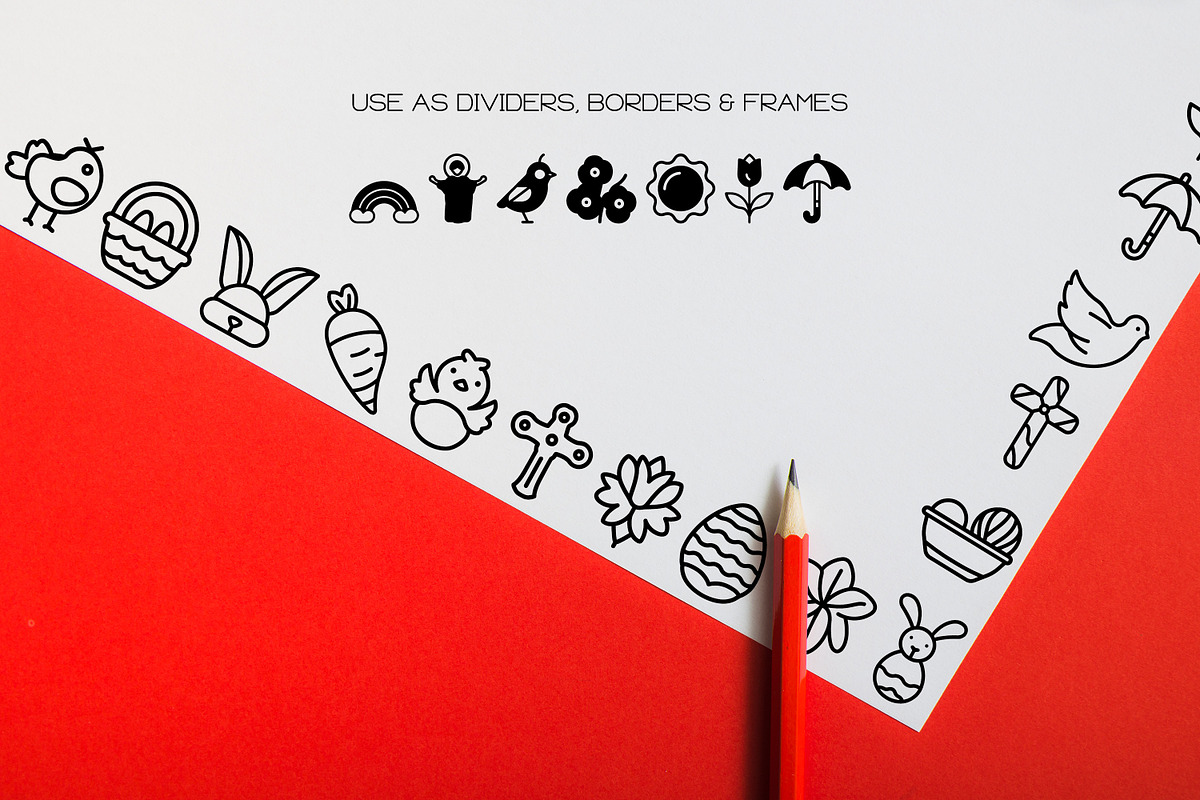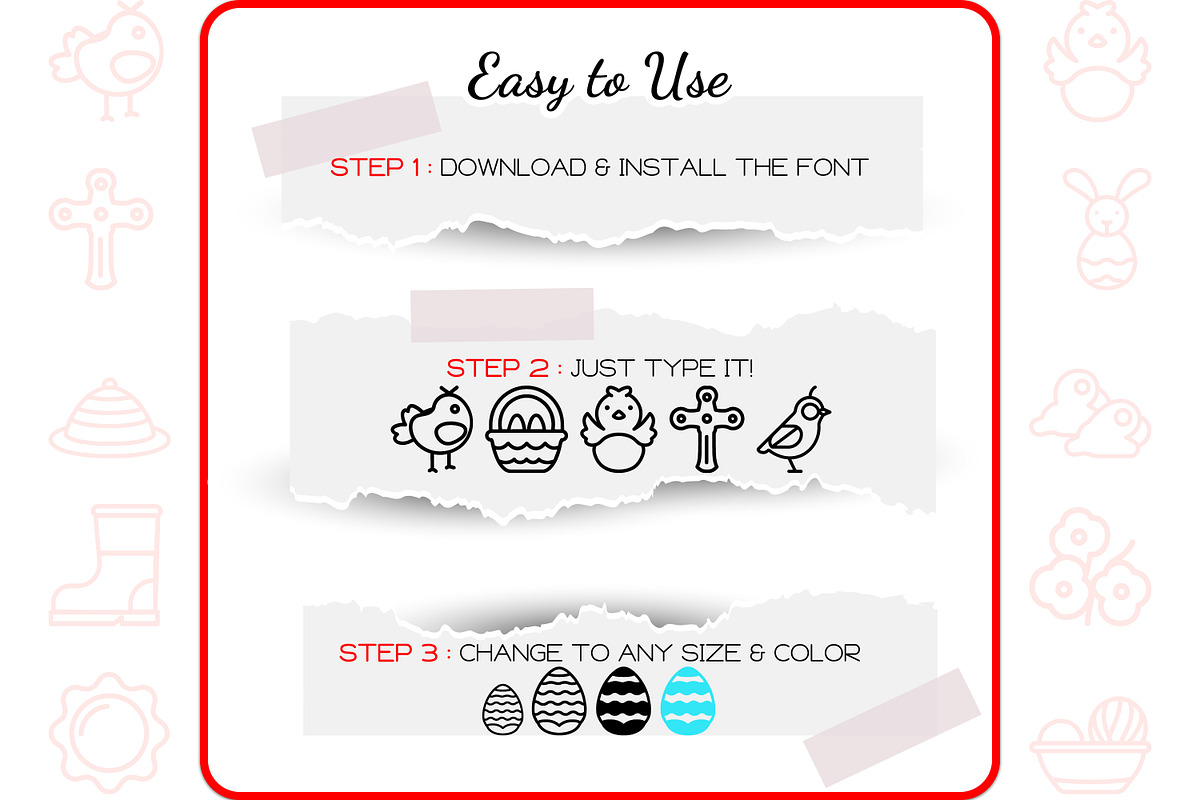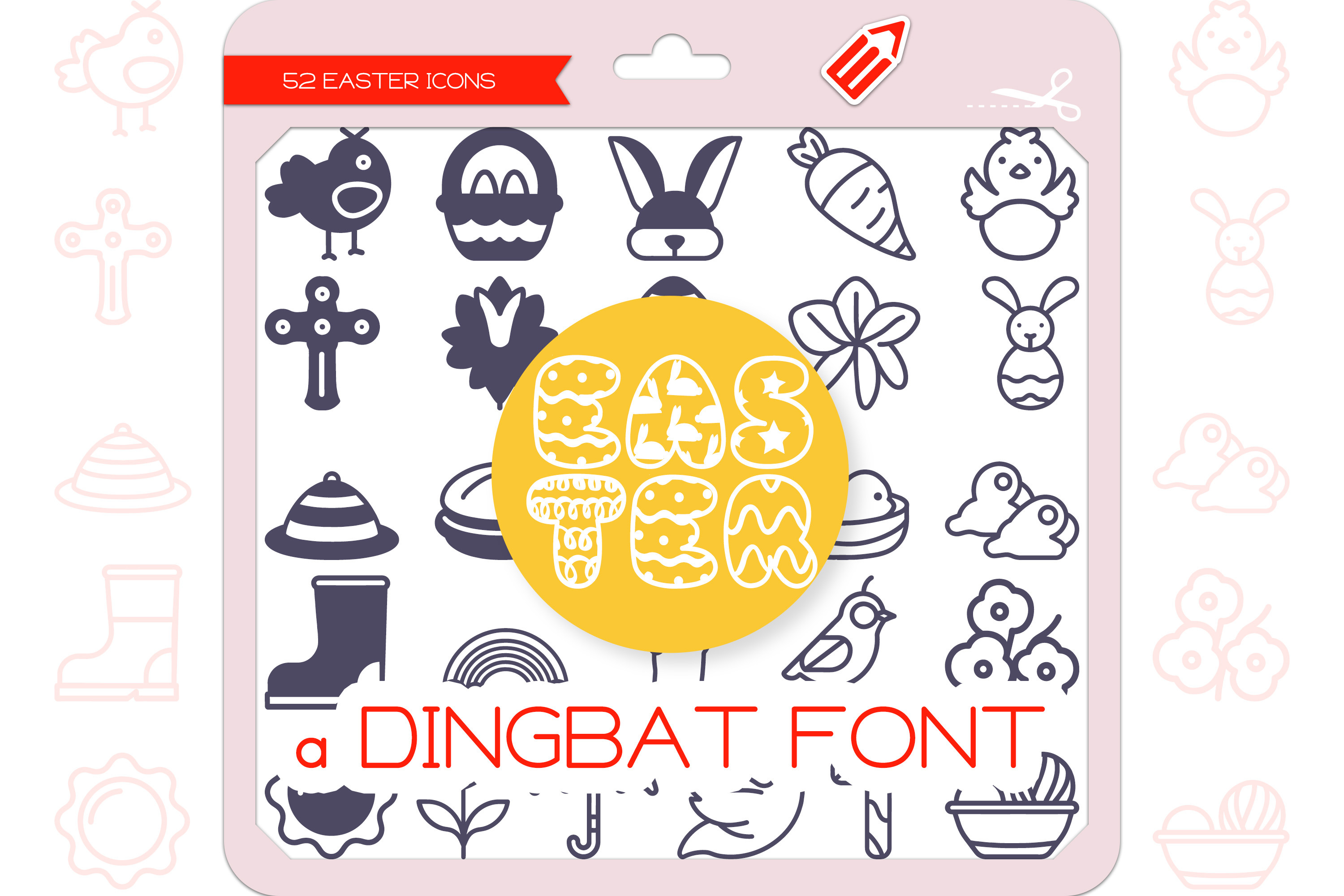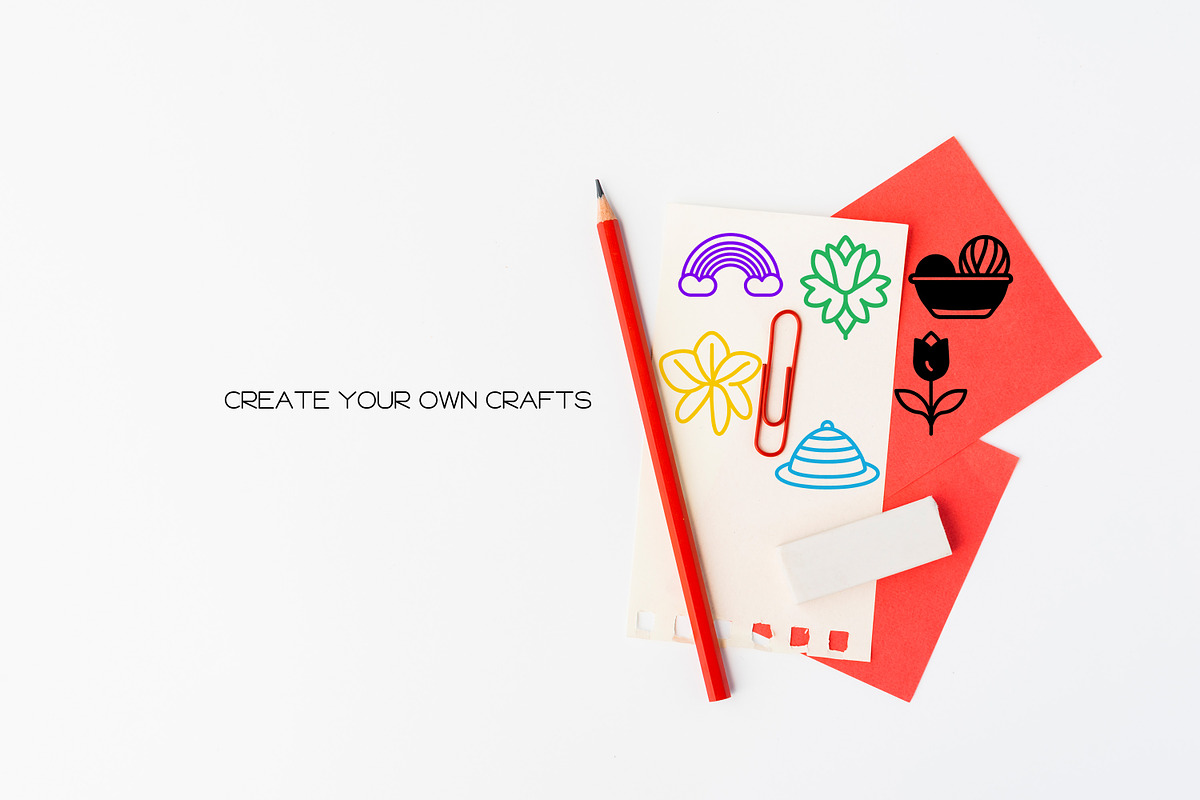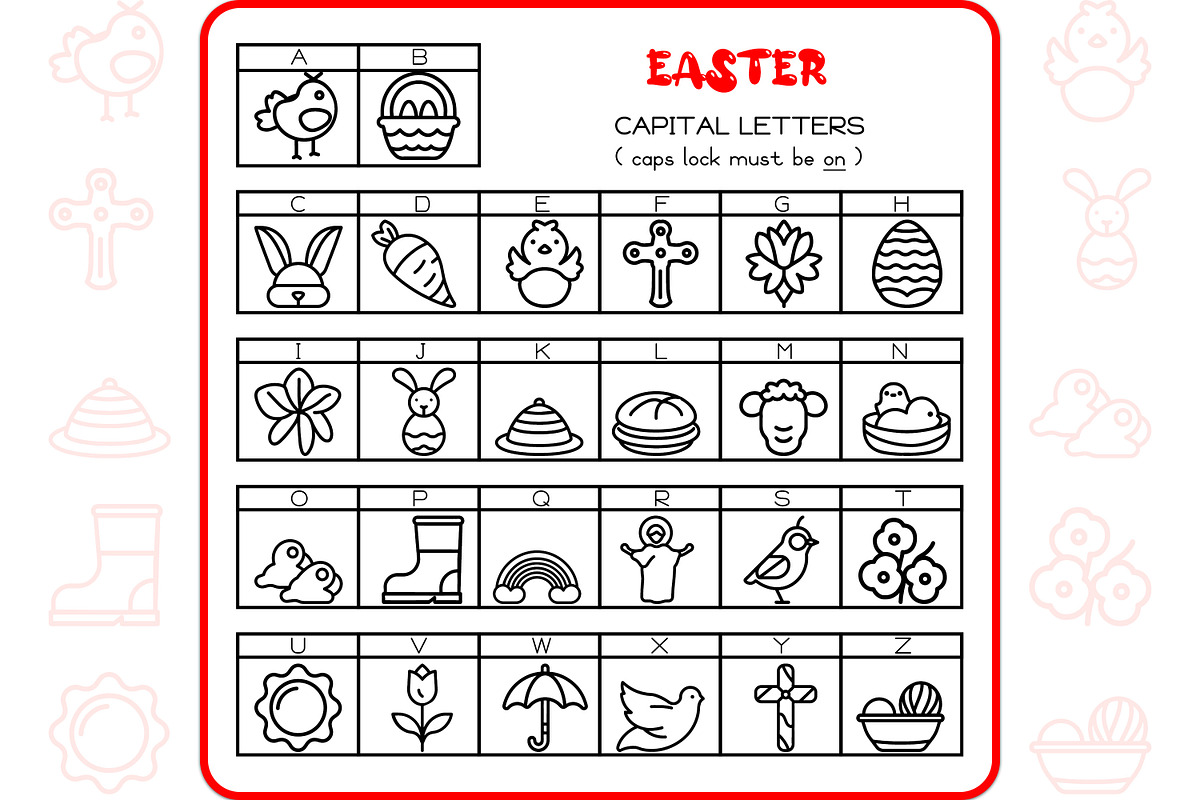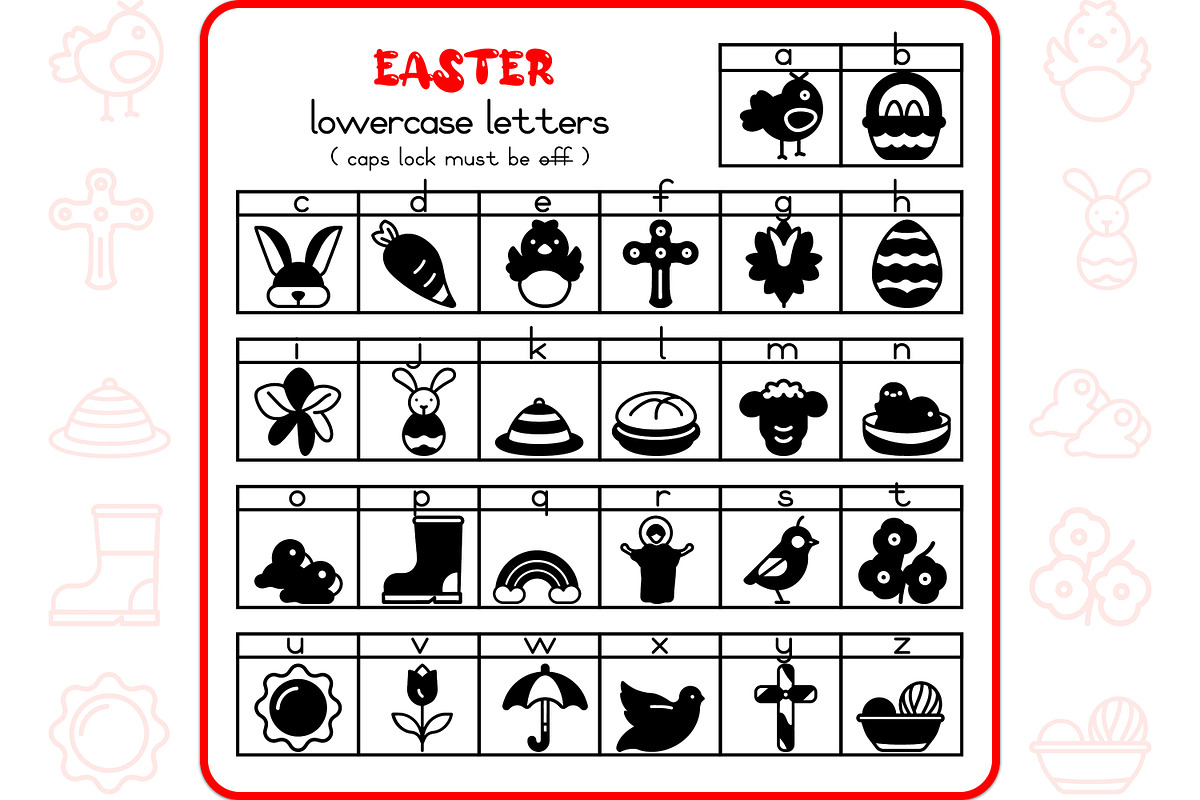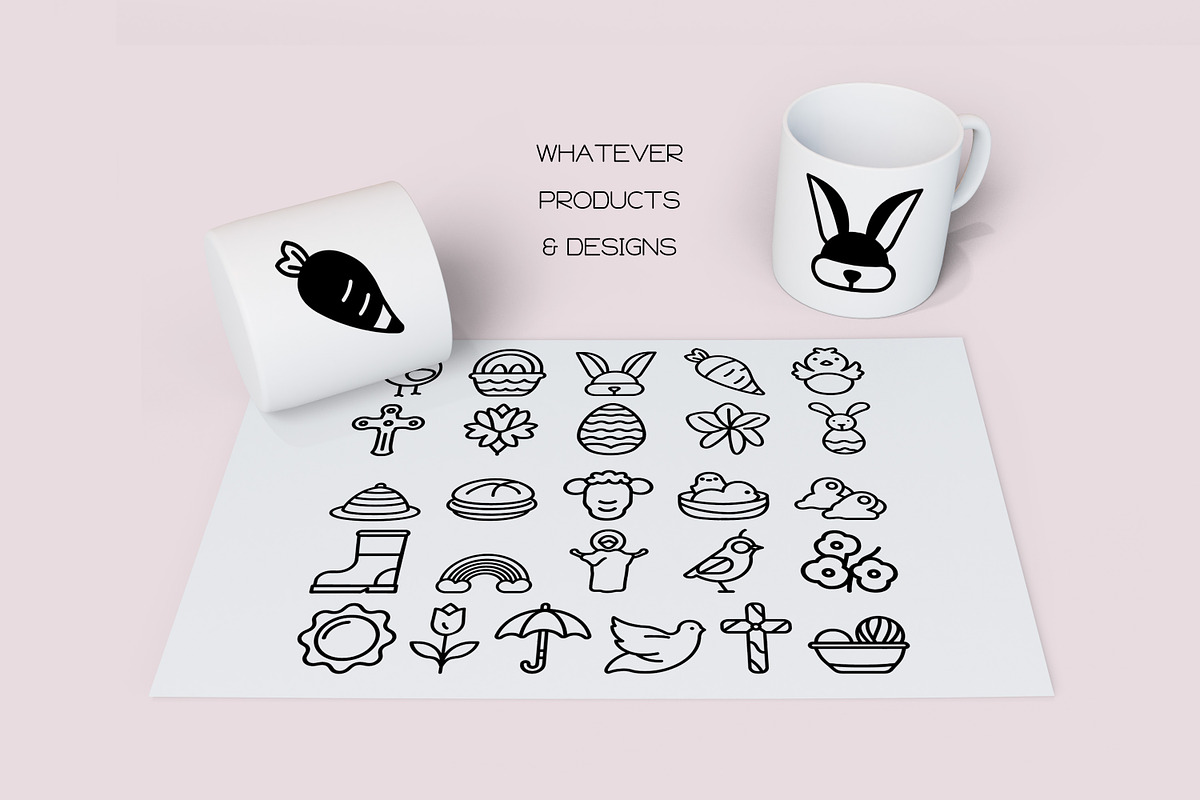
Easter Icons - Dingbat Font
Easter is a unique and cute dingbat font. It contains 52 icons in 2 styles (Outline & Filled-Outline). Add this font to your creative ideas and make your arts outstanding!
The Easter Icons Dingbat Font featuring 26 things Baby Chick, Basket, Bunny Ears, Carrot, Chick Hatching, Cross, Daffodil, Easter Egg, Easter Lily, Easter Bunny, Easter Bonnet, Hot Cross Bun, Lamb, Nest, Peeps, Rain Boots, Rainbow, Resurrection, Robin, Spring Flowers, Sun, Tulip, Umbrella, White Dove, Wood Cross, Yarn Basket